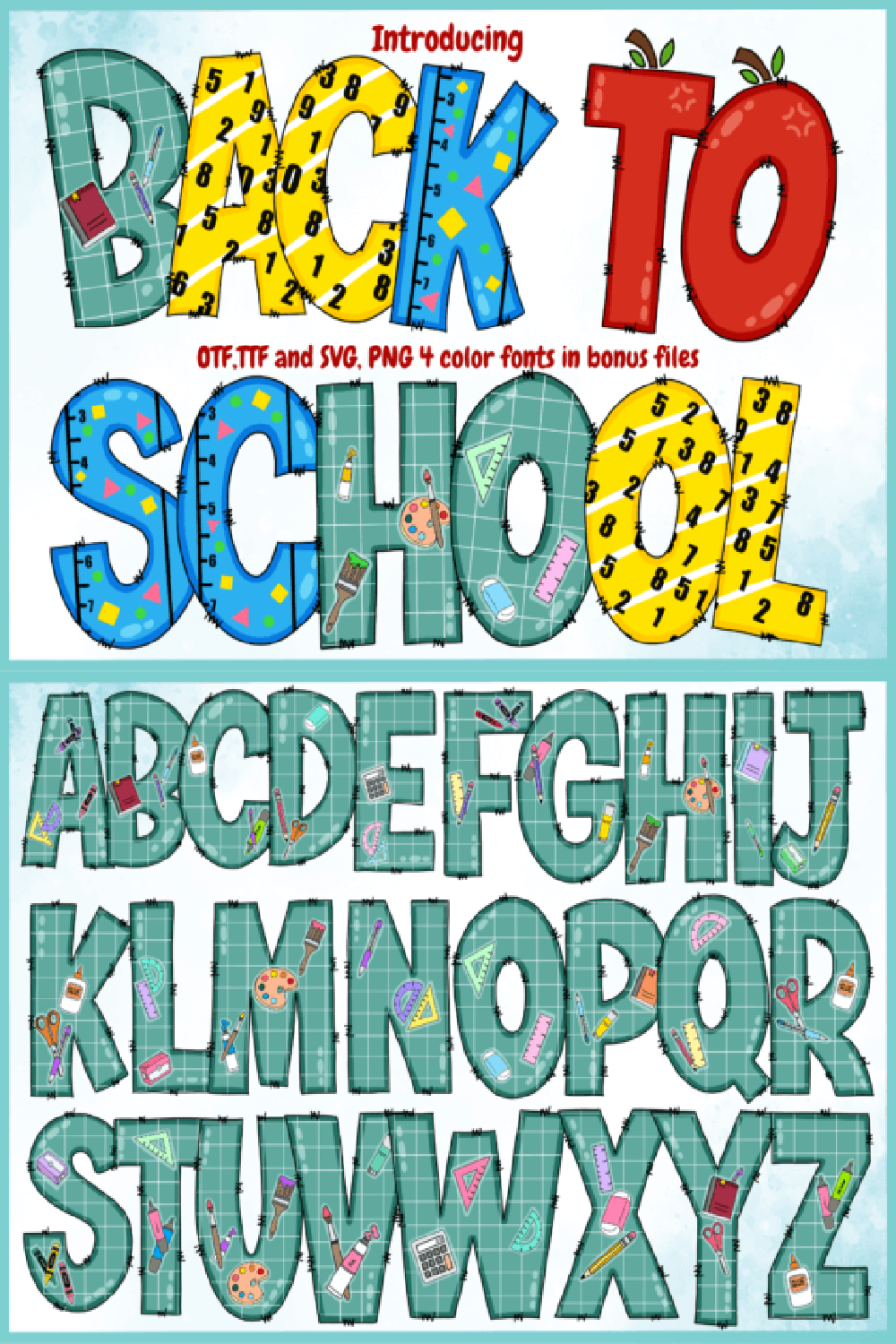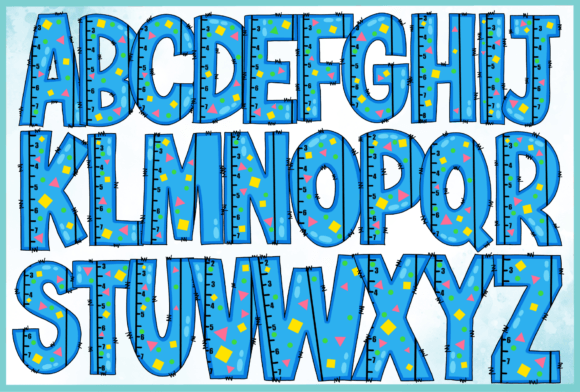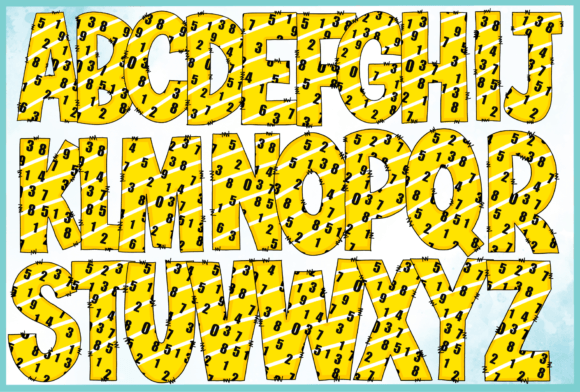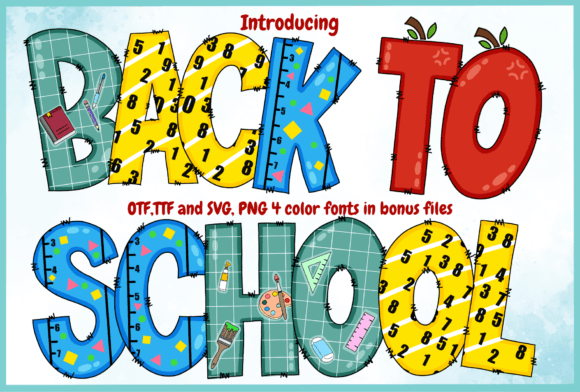
About the Back to School Font
Discover the charm of Back to School Font. This font is a perfect blend of modern aesthetics and classic appeal. Back to School is a cute and colorful color font. Use it for projects related to education, advertising, illustration, social media, stickers, clothing and so much more.